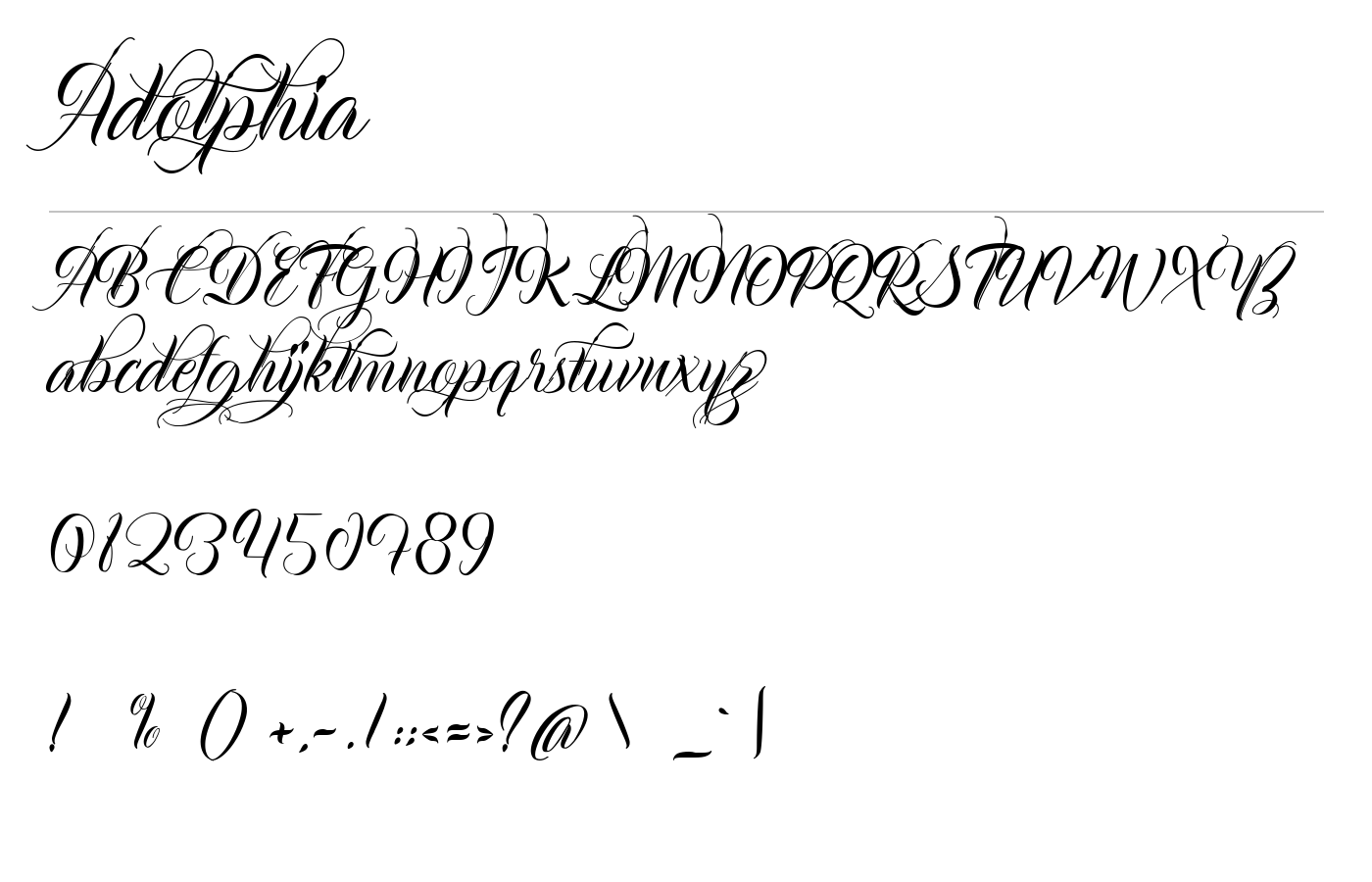
Adolphia is an elegant script font characterized by its delicate, flowing strokes and intricate swashes, giving it a refined, luxurious feel. Its high contrast between thick and thin lines, combined with graceful uppercase and lowercase letters, makes it perfect for sophisticated branding, wedding invitations, and upscale editorial use where a classic, ornamental style is desired. This font shines in uses that call for a romantic, timeless touch and a strong sense of elegance.
Adolphia Font
About Adolphia Font